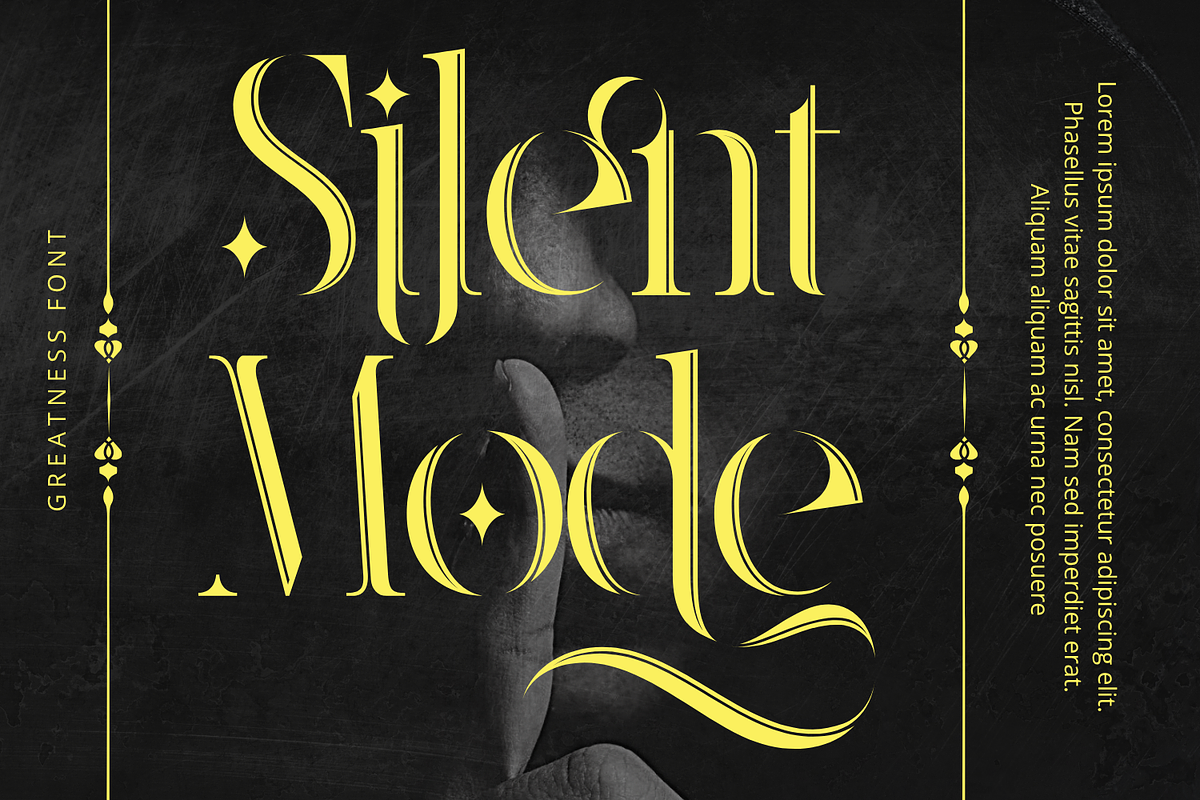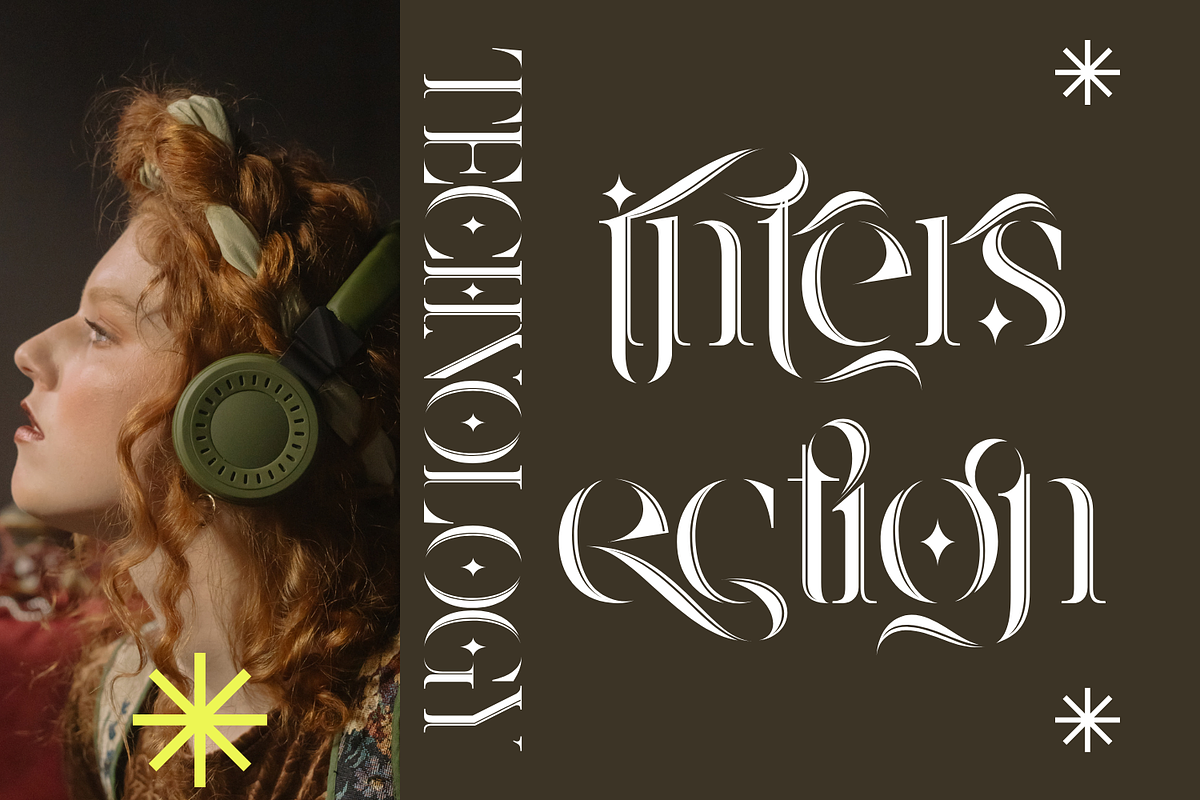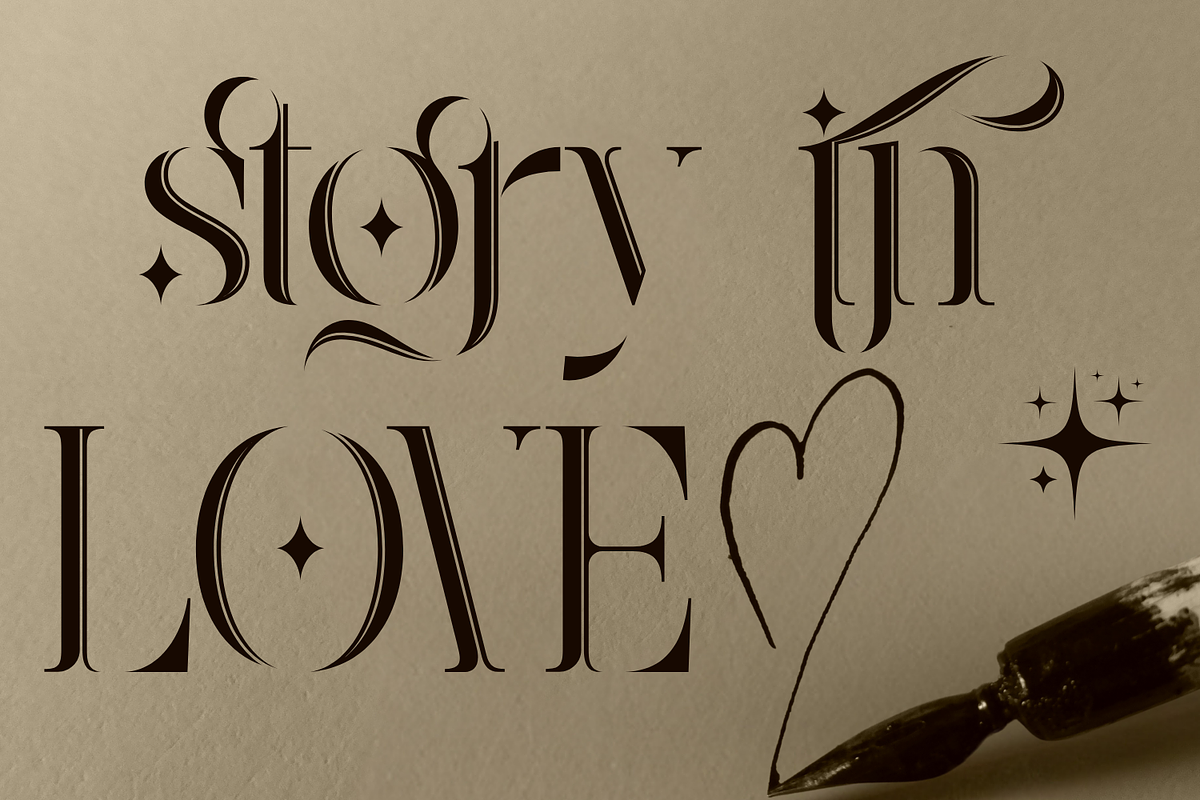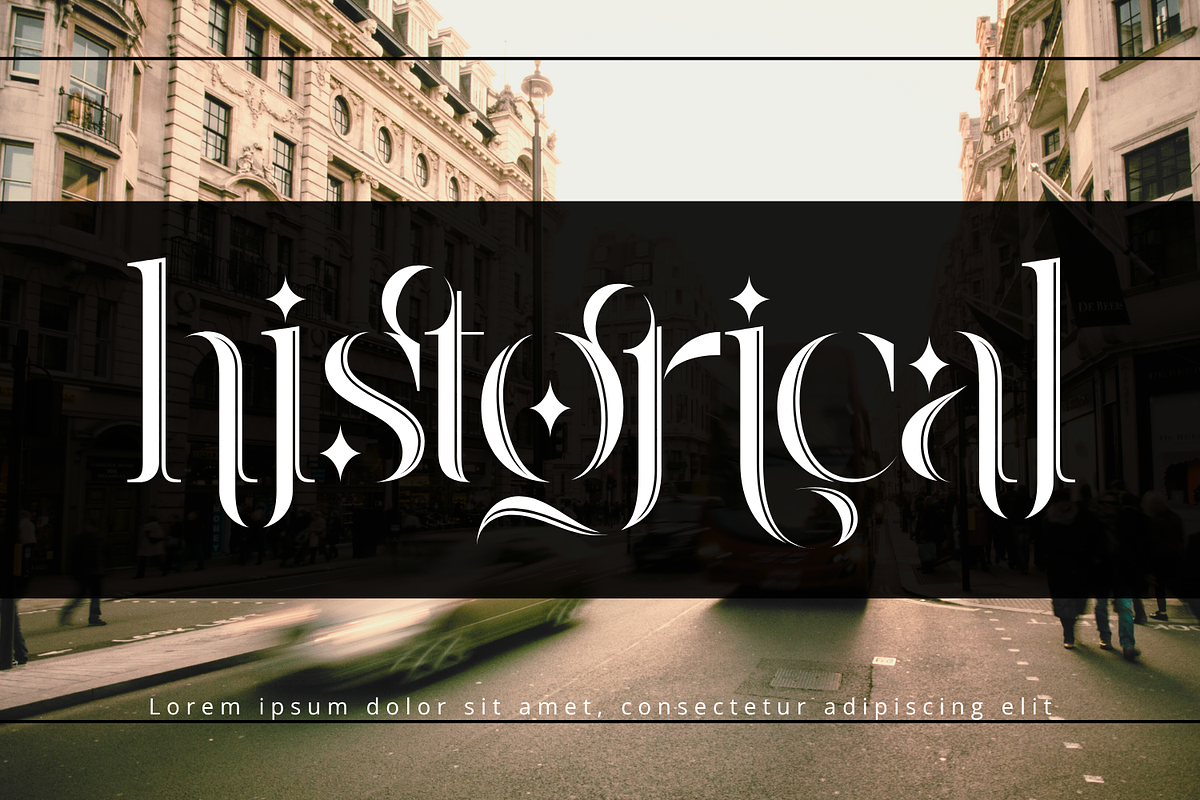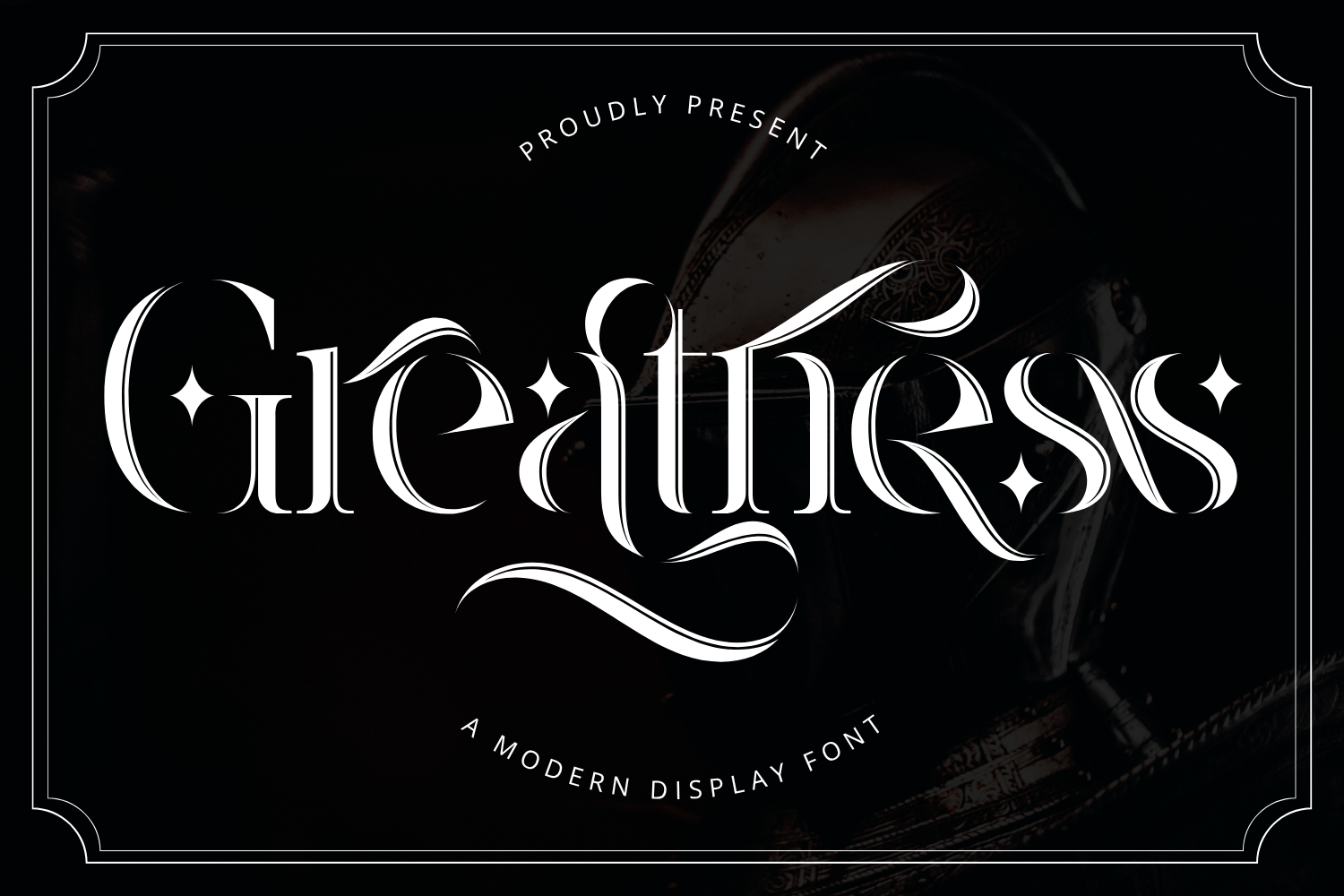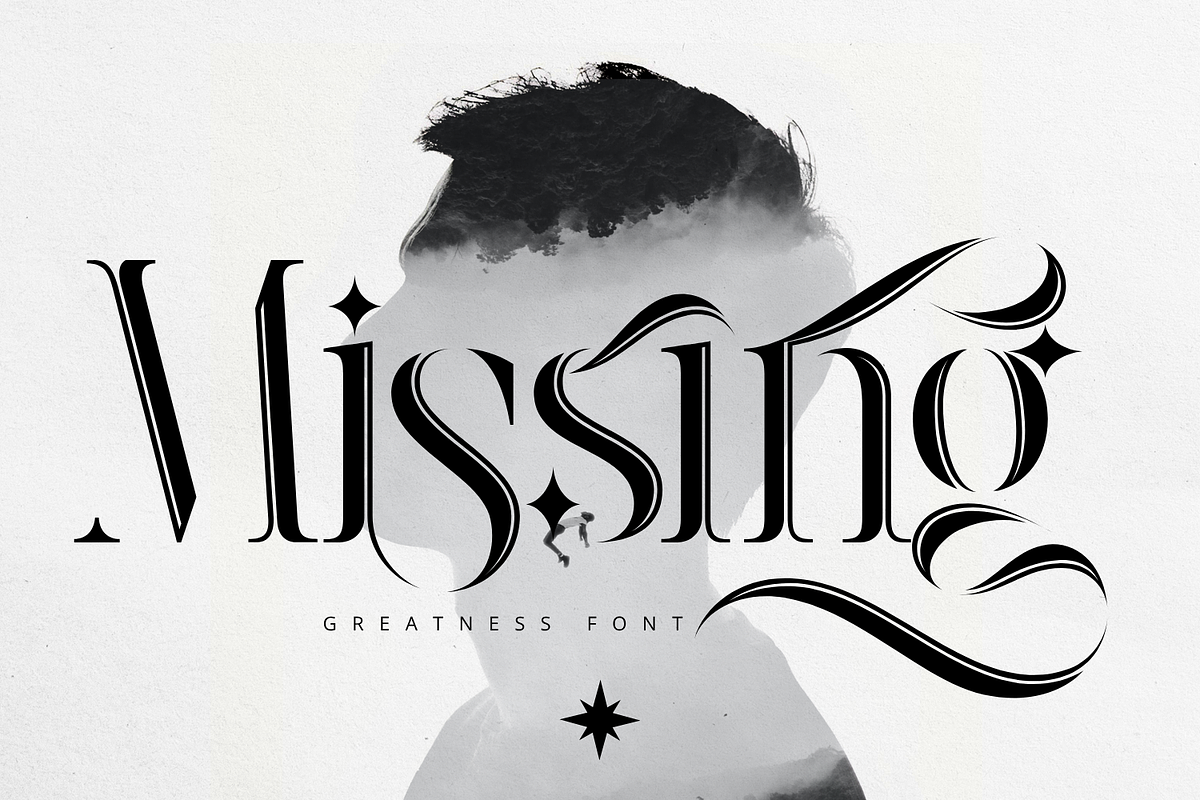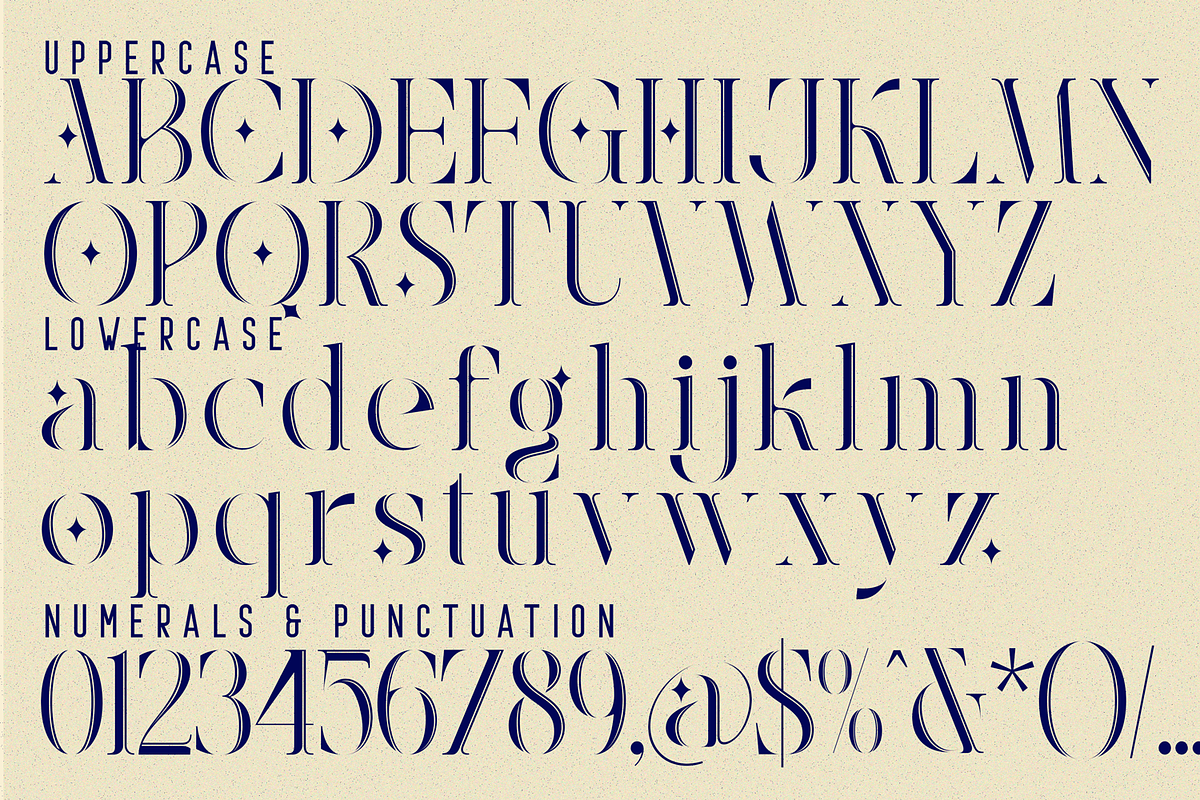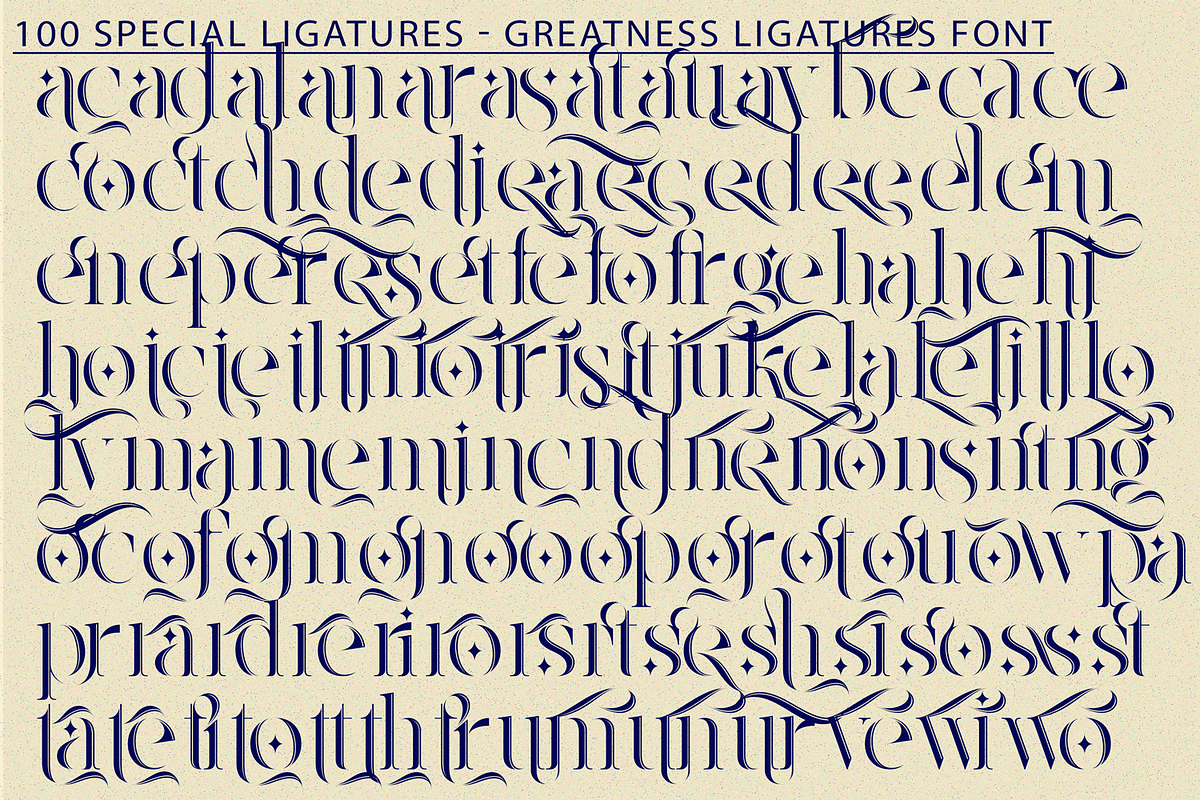
Greatness Ligatures Font
Greatness Ligatures Font is a luxurious high-contrast serif display font that blends elegance and drama with a touch of ornamental flair. Featuring sharp vertical stems, gracefully tapered curves, and flourished swashes, this typeface was designed to evoke a sense of grandeur and nobility. The font is punctuated with diamond-shaped sparkles and calligraphic strokes, making it perfect for premium branding, fashion editorials, packaging, or any project that demands a bold, regal presence.
- Uppercase & Lowercase Letters
- 100+ Exquisite Ligatures and Alternates (swashes, stylistic variations)
- Multilingual Accents & Diacritics
- Fully optimized for large headings, logos, and digital banners
- Ideal for luxury, fashion, gothic romance, or editorial design
About 100 ligatures combined with Stylistic Alternates Font:
ac ad al an ar as at au av be ca ce ch co ct de di ea ec ed ee el em en ep er es et fe fo fr ge ha he hi ho ie ic il in io ir is it ju ke la le li ll lo ly ma me mi nc nd ne ng no nt ns oc of om on oo op or ot ou ow pa pr ra rd re ri ro rs rt se sh si so ss st ta te th ti to tr tt um un ur ve wi wo